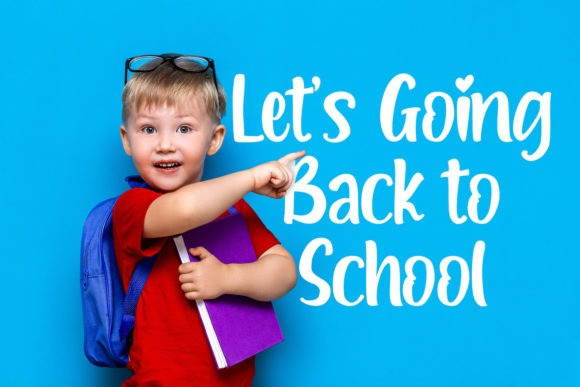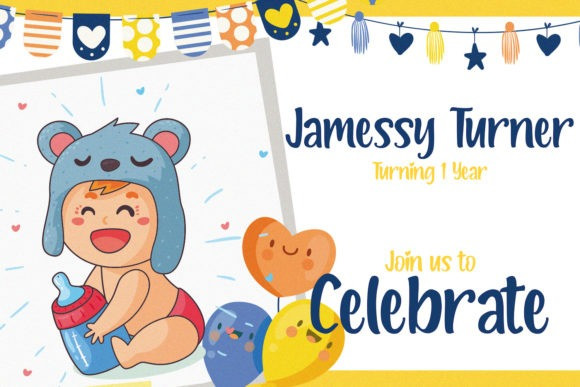
Lovely Kids Display Font
Lovely Kids embodies fun, quirkiness and authenticity. This playful display font will take your designs to the next level with it’s unique look! Lovely Kids is the perfect fit for all of your logos, branding, social media, and crafty DIY projects.